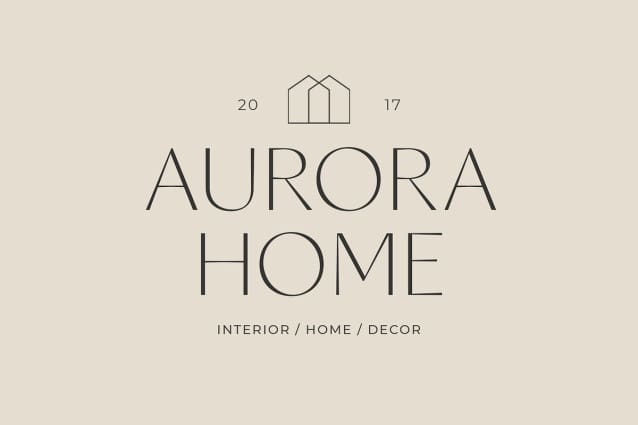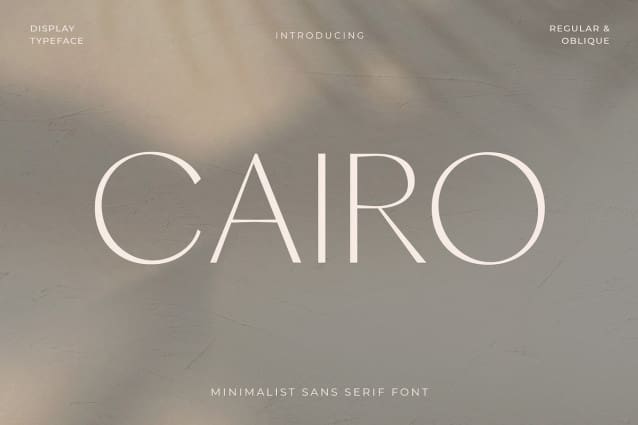
Cairo Sans Font
Cairo Sans Font is a modern and sleek font that exudes simplicity and sophistication. This minimalist sans-serif font features clean, crisp lines with subtle contrasting strokes, adding just the right amount of edge to its overall design. The font’s simple and unassuming style makes it a versatile choice for a wide range of design projects, from branding and advertising to editorial layouts and web design.
The font comes in two styles: Regular and Oblique. The regular style is perfect for headlines and titles, while the oblique style adds a touch of elegance and finesse to body text. The oblique style is also ideal for creating emphasis and drawing attention to key elements within a design.
CAIRO’s design is inspired by the contemporary architecture. Its clean, minimalist look reflects the modern and forward-thinking nature of the city, making it a perfect choice for designers who want to create a bold, sophisticated look for their projects.